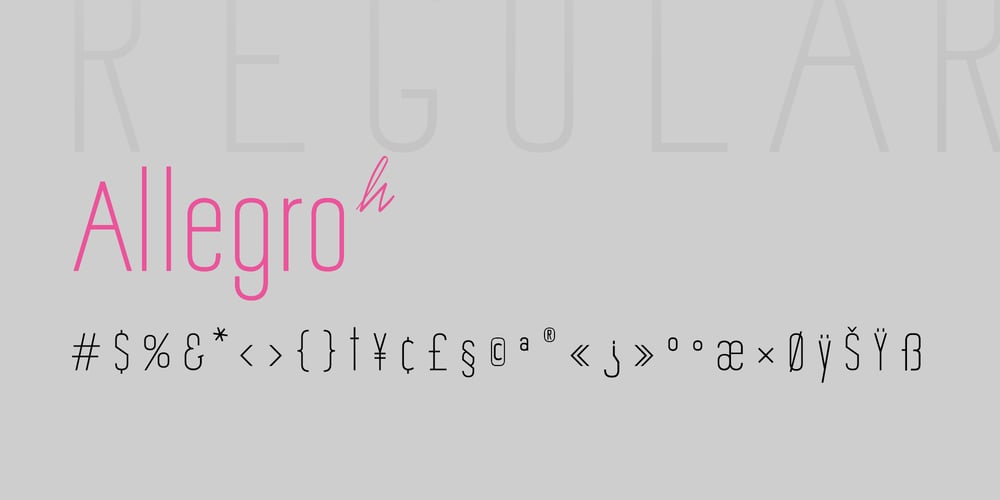
Allegro Sans Font Family was designed by Ana Clara Dantas de Carvalho and published by Happax. Allegro Sans contains 6 styles and family package options. Allegro Sans is a joyful, bright, cheerful and minimal font inspired by the vibrant speed and gentle movements of the Allegro tempo.